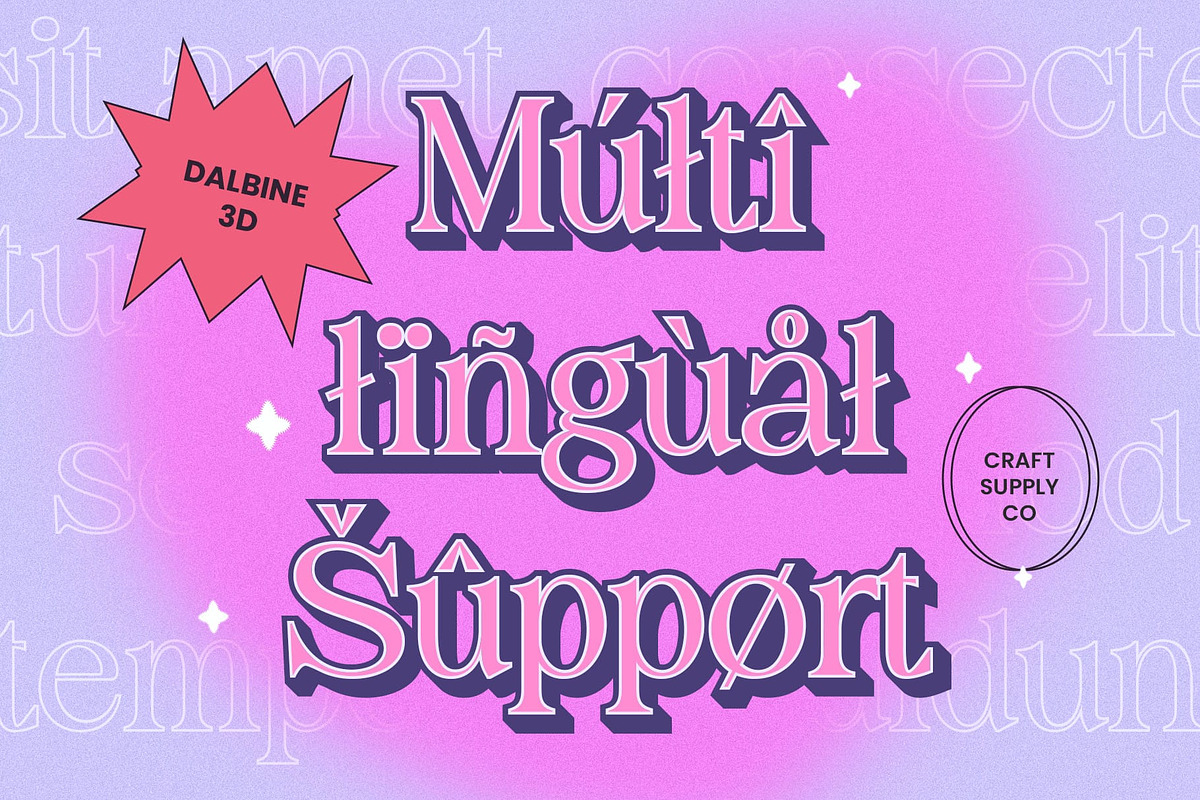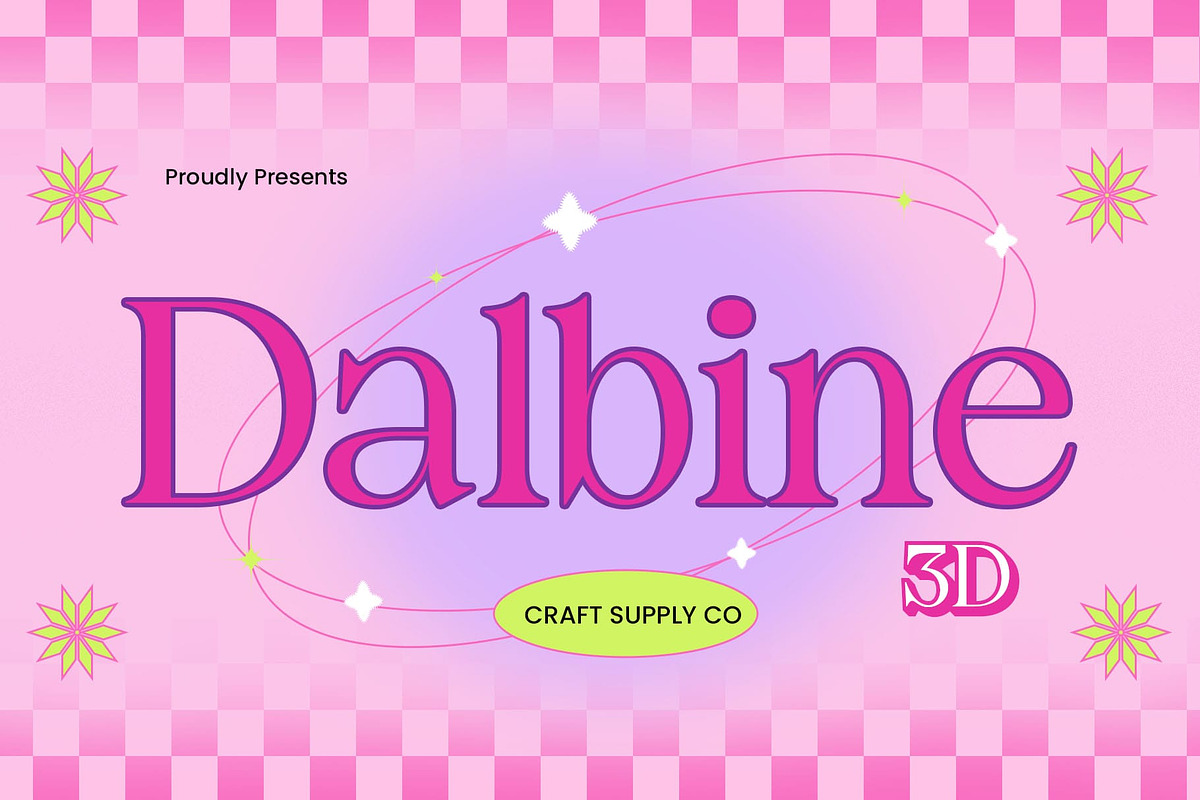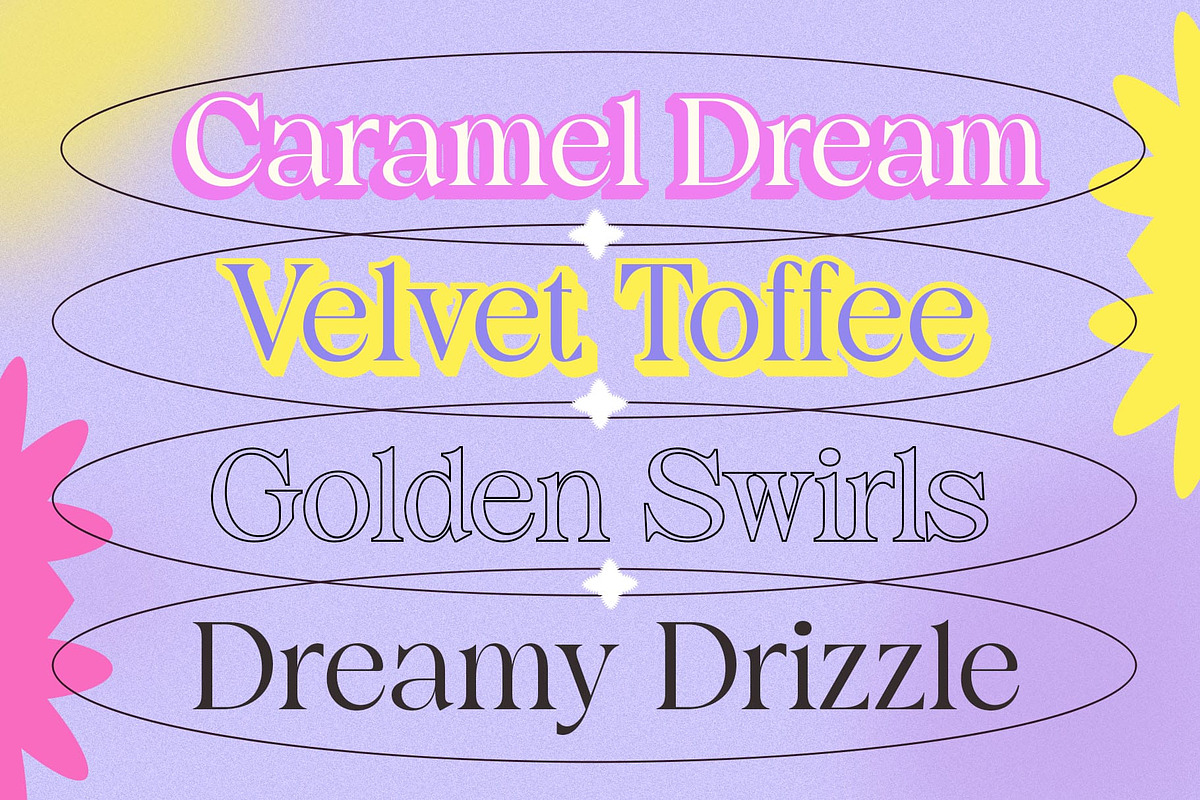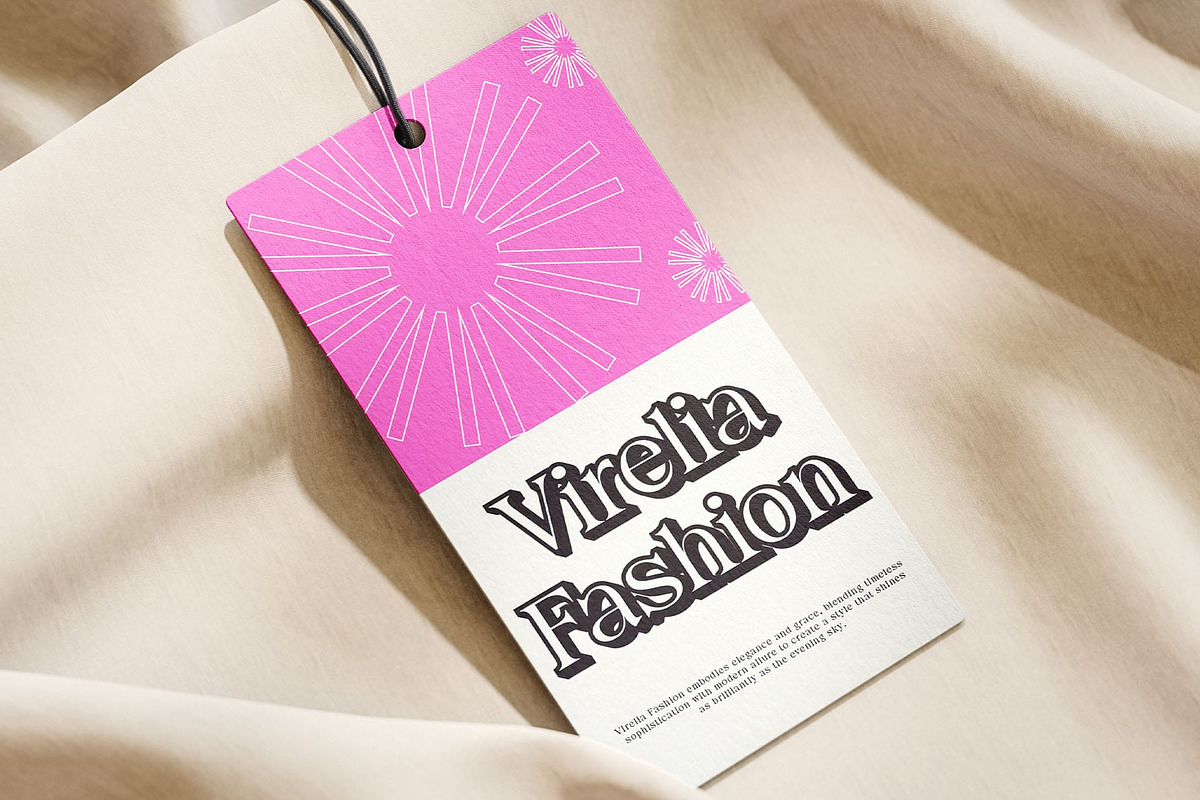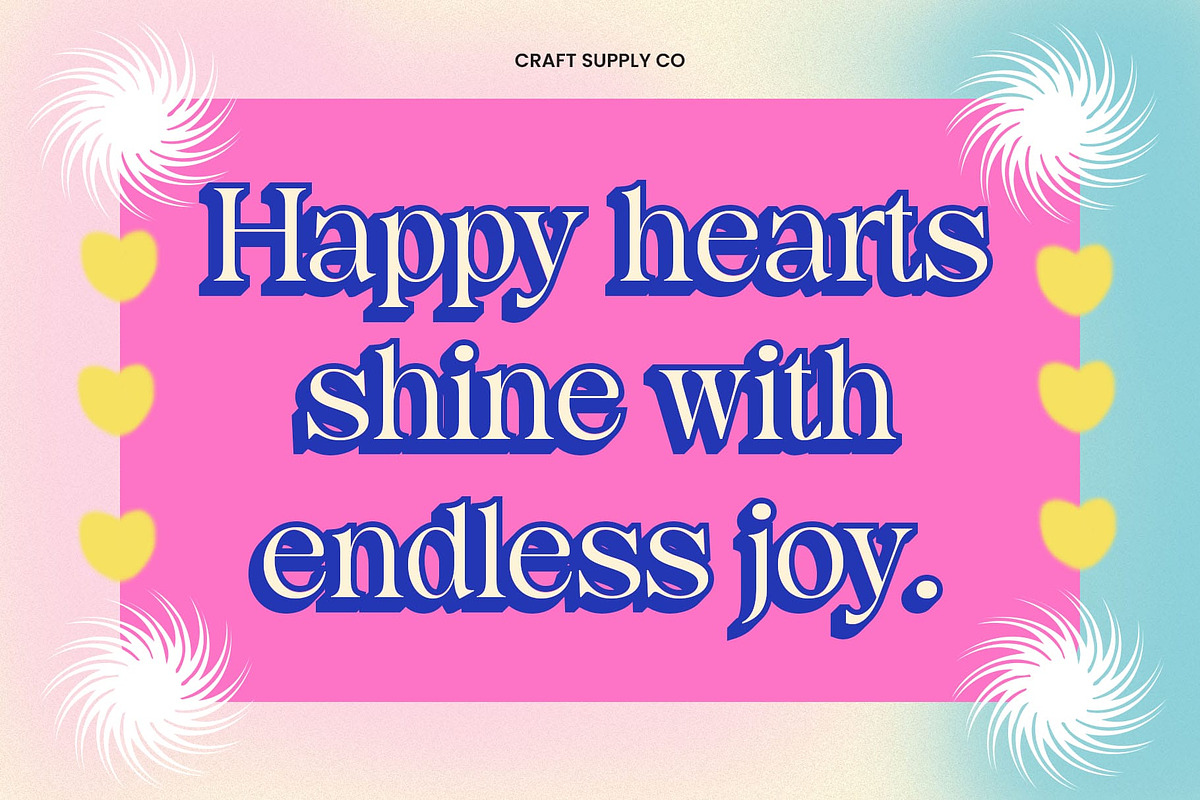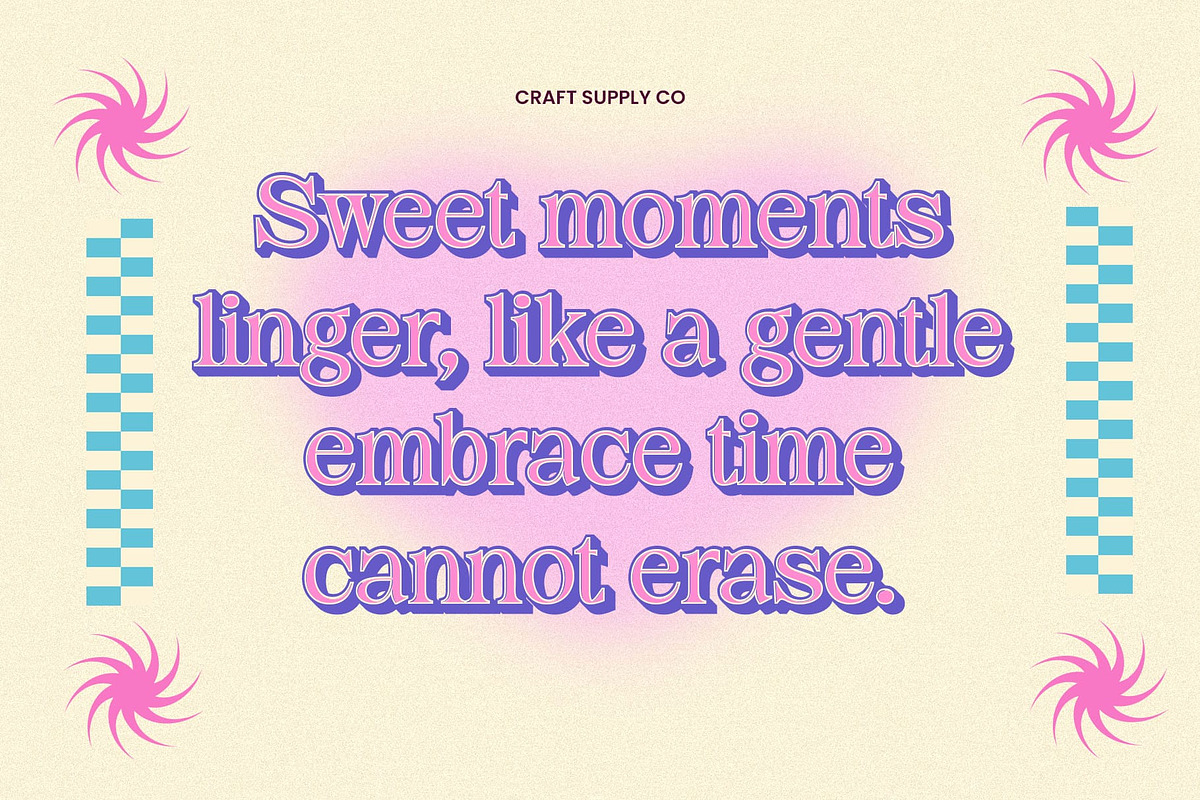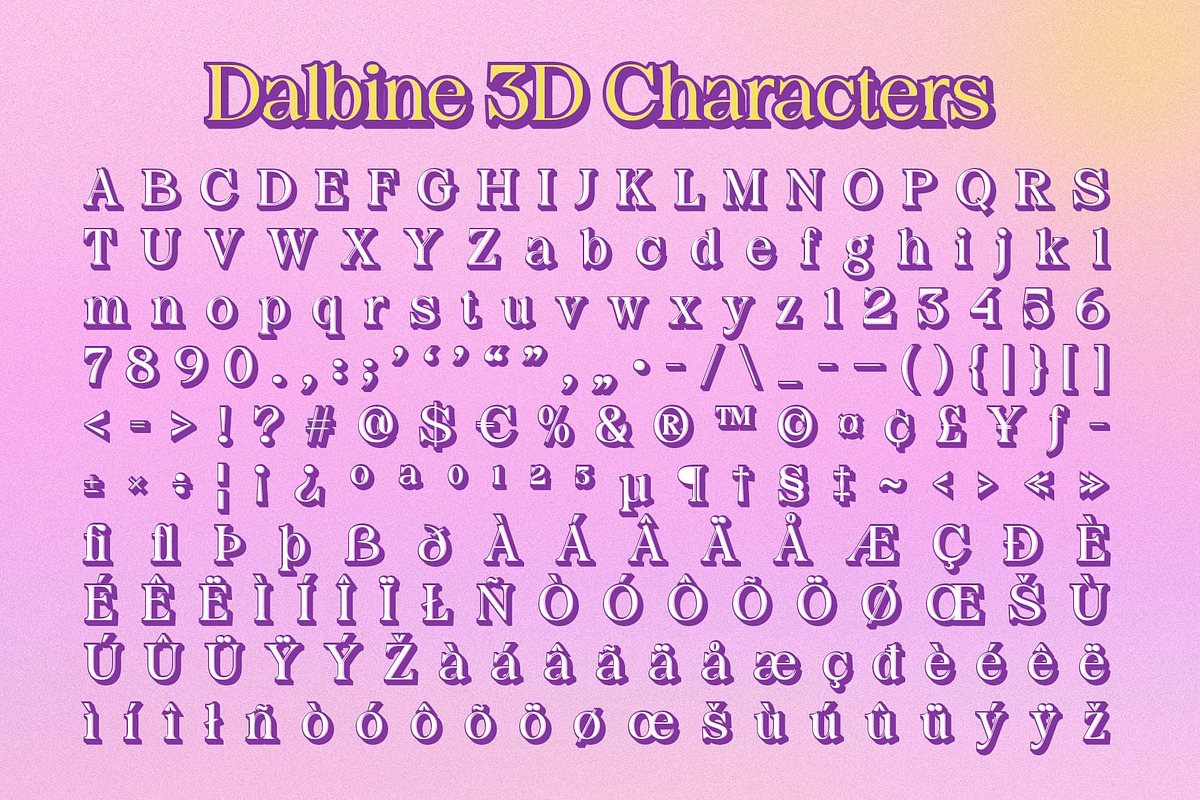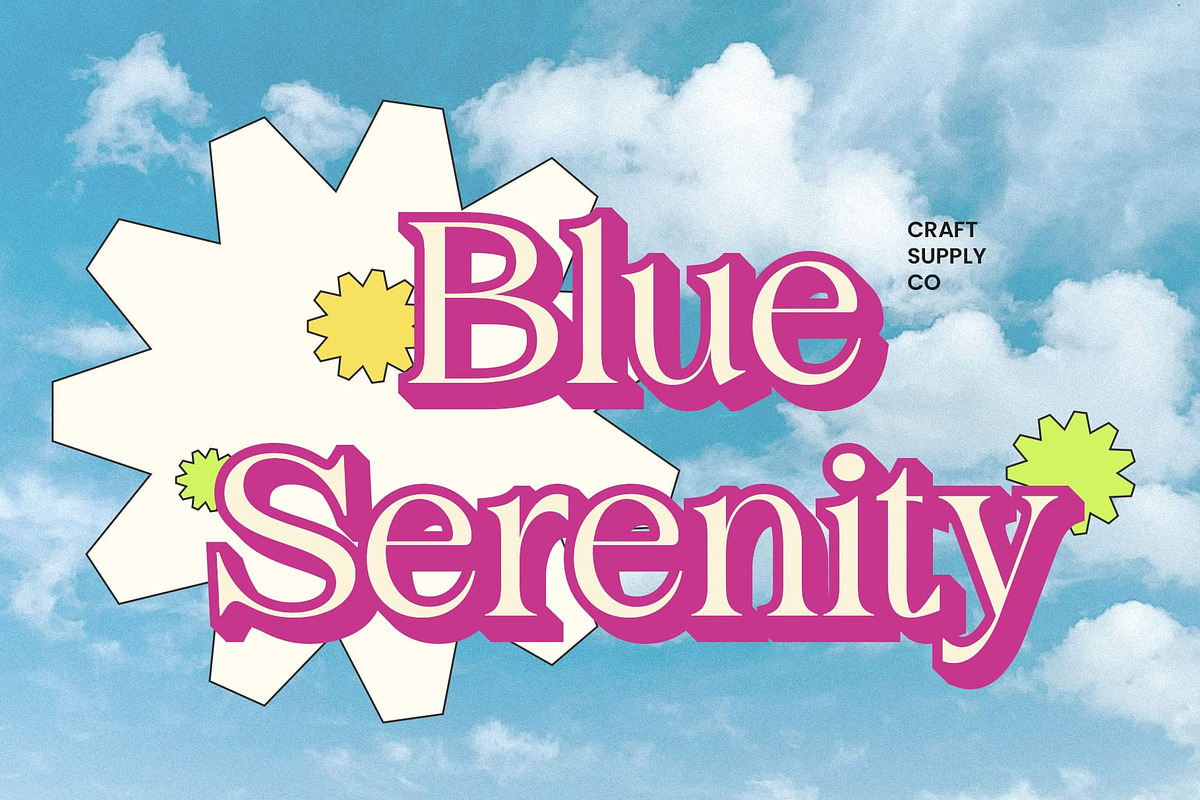
Dalbine 3D
Dalbine 3D Font: A Modern Serif Font with Luxurious Elegance
Modern Serif Design with a Minimalist Touch Dalbine 3D is a sophisticated modern serif font that combines a minimalist design with classic serif elements. Its clean, sleek letterforms provide a balanced and refined aesthetic, exuding an air of elegance while remaining contemporary. The subtle serif details add a timeless touch, perfect for projects that aim to convey luxury and sophistication.
Elegant Vibe Enhanced with 3D Depth The 3D effect applied to Dalbine 3D brings a dynamic sense of depth and dimension, allowing each character to stand out while preserving the font’s refined elegance. The three-dimensional appearance adds strength and prominence to the design, making it highly effective in capturing attention without sacrificing its graceful style.
Perfect for Luxury Branding and Formal Designs Dalbine 3D is the ideal choice for high-end branding, corporate designs, and formal invitations that require a combination of modernity and luxury. Whether you’re creating a sophisticated logo, a polished editorial layout, or an elegant event invitation, this font enhances the visual appeal and adds a professional, luxurious touch. Dalbine 3D offers the perfect blend of modern simplicity and timeless elegance, making it a versatile choice for any design that needs a luxurious yet contemporary feel.
- Dalbine Regular
- Dalbine Outline
- Dalbine Extrude Right
- Dalbine Extrude Left